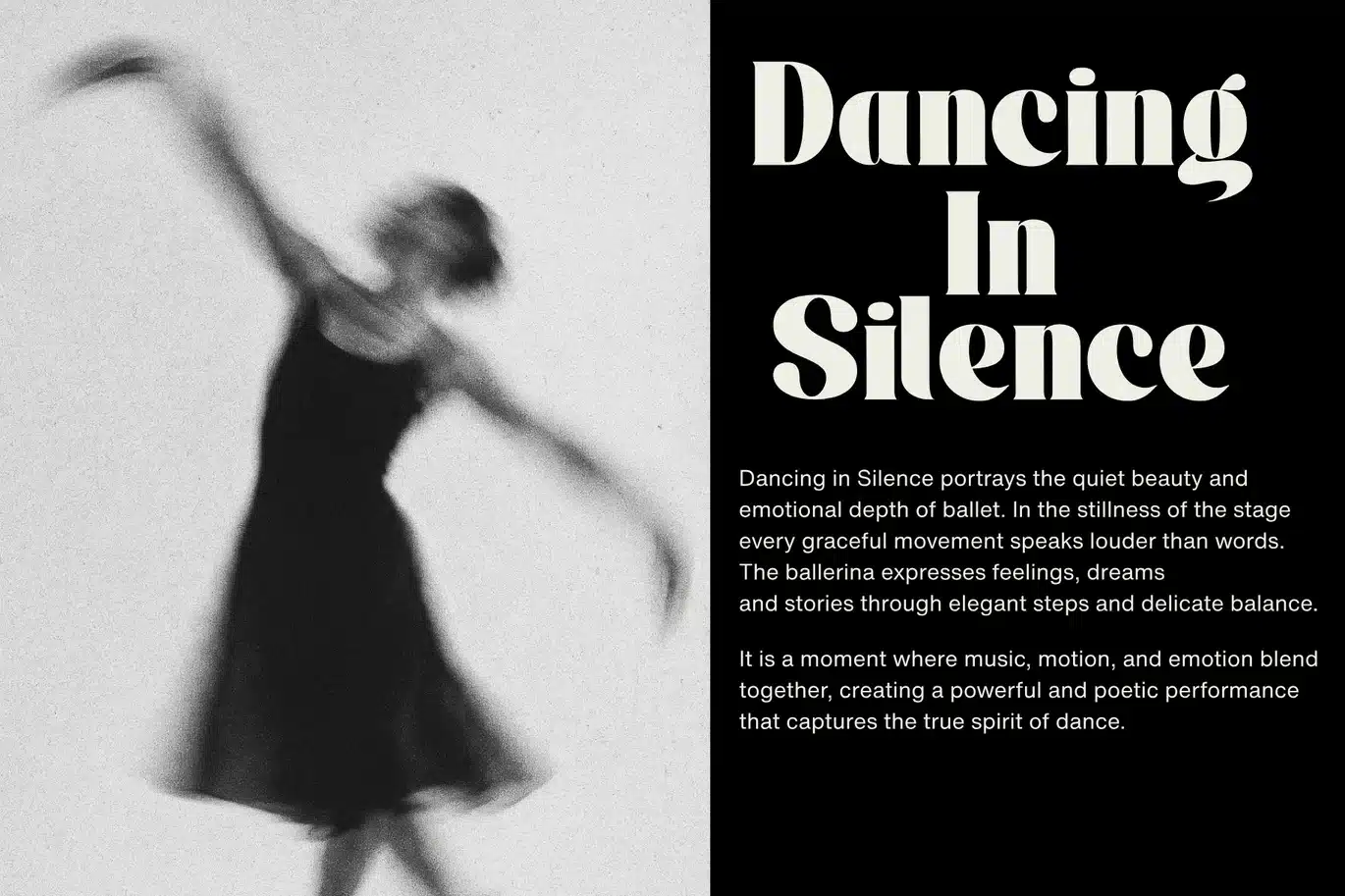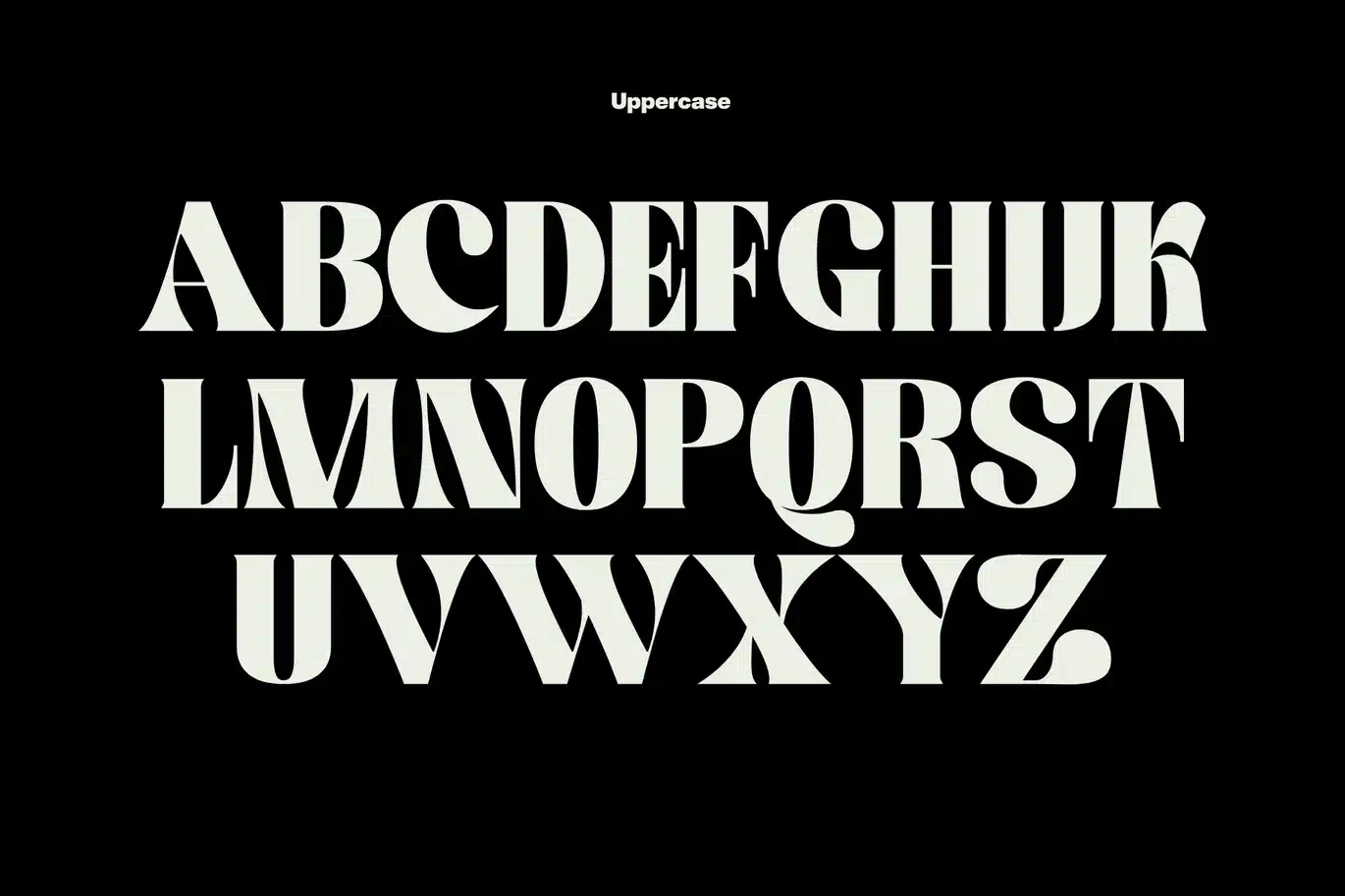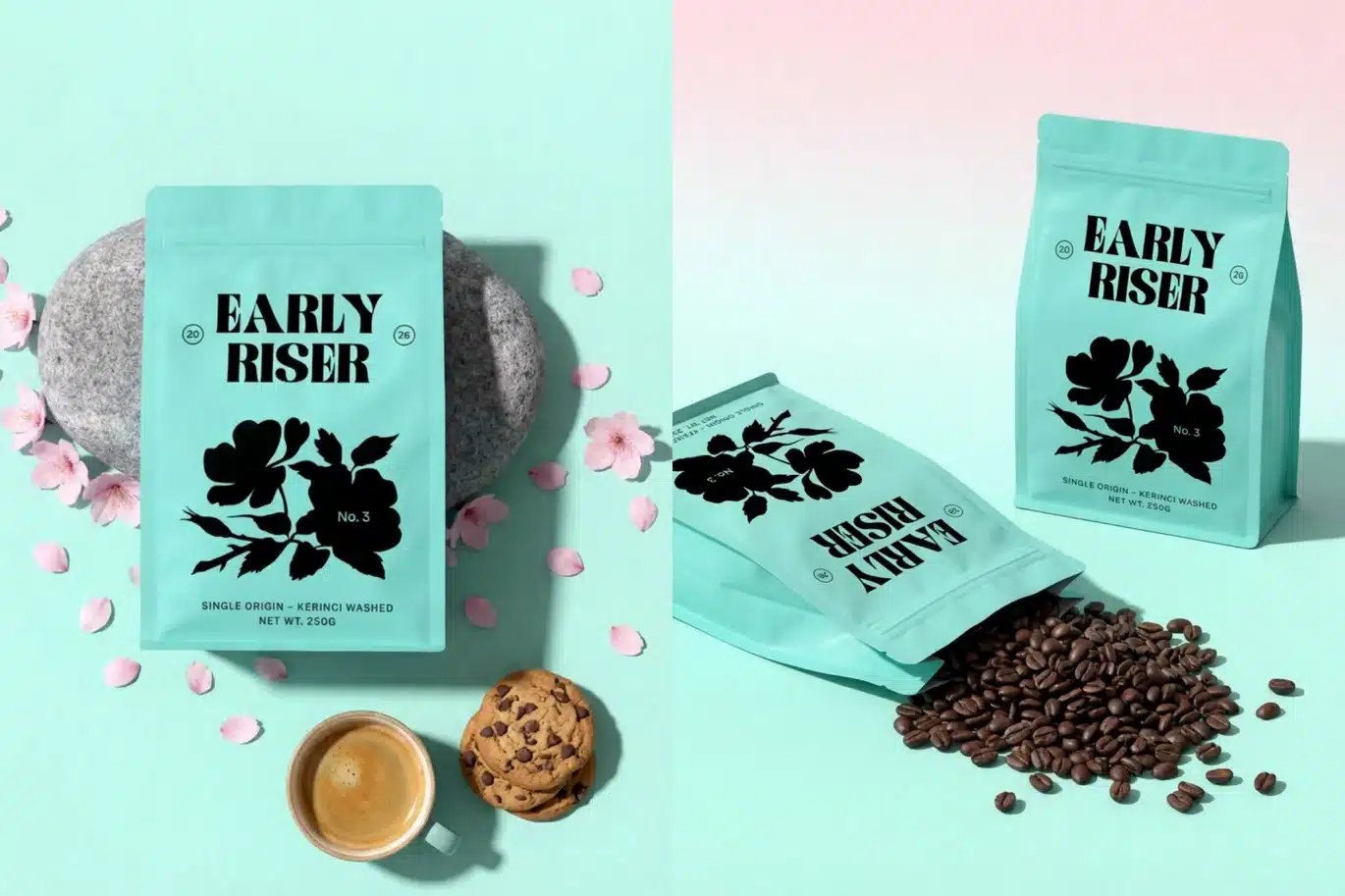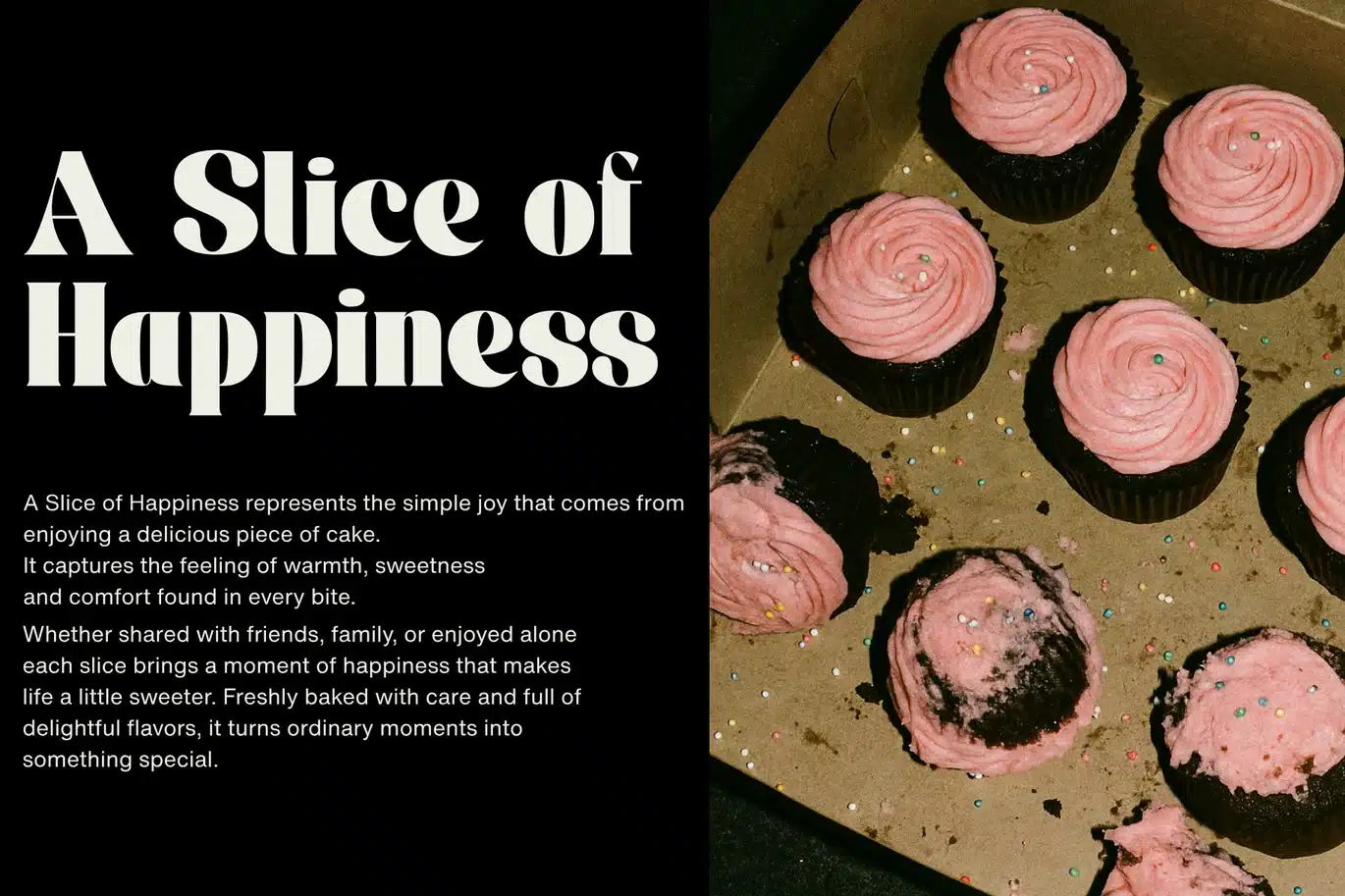
Devente Font
Devente is a bold and elegant display font that combines classic serif elements with a modern aesthetic. Its strong, thick letterforms create a powerful visual presence, making it perfect for headlines, posters, branding, and editorial designs. The sharp curves and balanced proportions give the typeface a sophisticated and stylish personality while maintaining excellent readability. Devente brings a sense of confidence, luxury, and artistic character to any design, making it ideal for projects that need a striking and memorable typographic statement
Uppercase and lowercase characters
Numerals and punctuation (OpenType Standard)
Symbols
Multilingual support